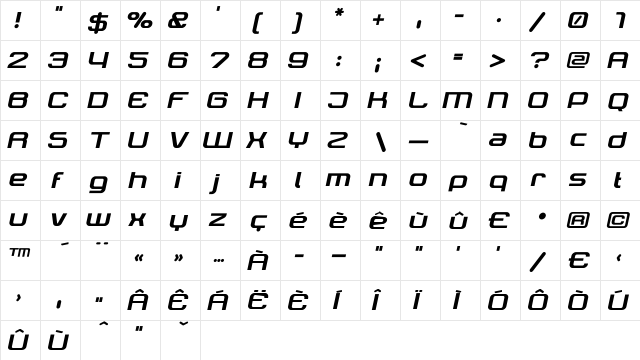
Tektrron Regular
Design Context for Tektrron Typeface
Tektrron offers clean, dependable letterforms without strong stylistic allegiance, making it a practical choice for designers who need flexibility.
Pro Tip: Use Tektrron in both headline and body roles to test its range before committing to a single application.